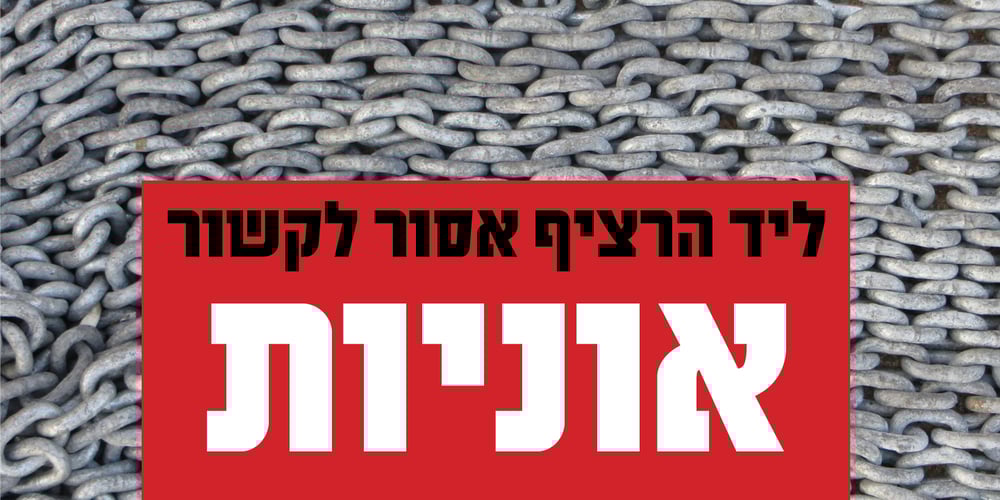
Musaf MF Font Family was designed by Zvika Rosenberg and published by Masterfont. Musaf MF contains 5 styles and family package options. High readability with an historic flavor, this elegant font family is great for signage, headline etc.